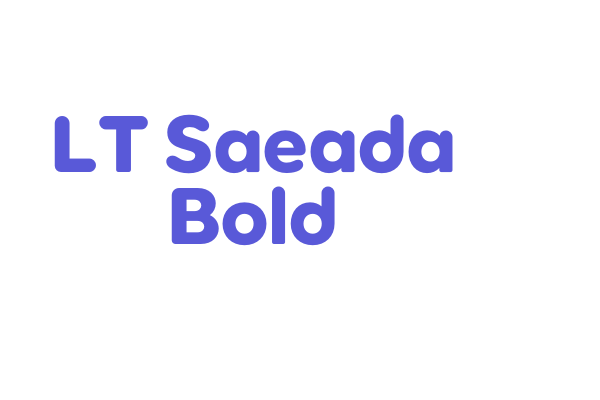
LT Saeada Bold is a sleek and modern sans serif font designed by Daniel Lyons. Part of the LT Saeada font family, this bold style stands out with its clean lines and strong presence. Ideal for headlines, logos, and branding projects, this font exudes confidence and sophistication.
Font Name: LT Saeada Bold
Designer: Daniel Lyons
Font Family: LT Saeada